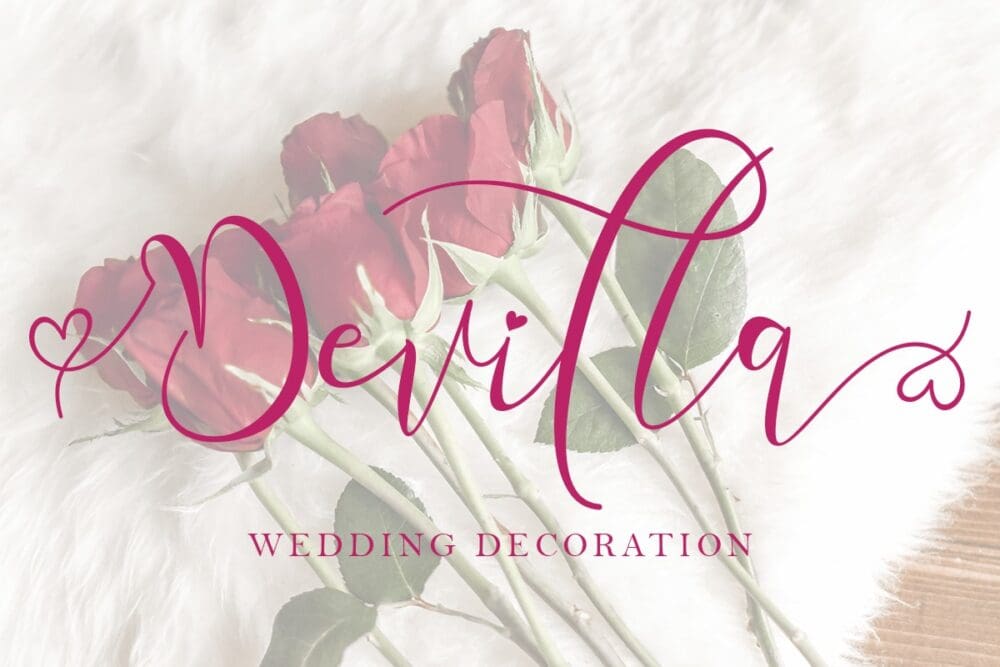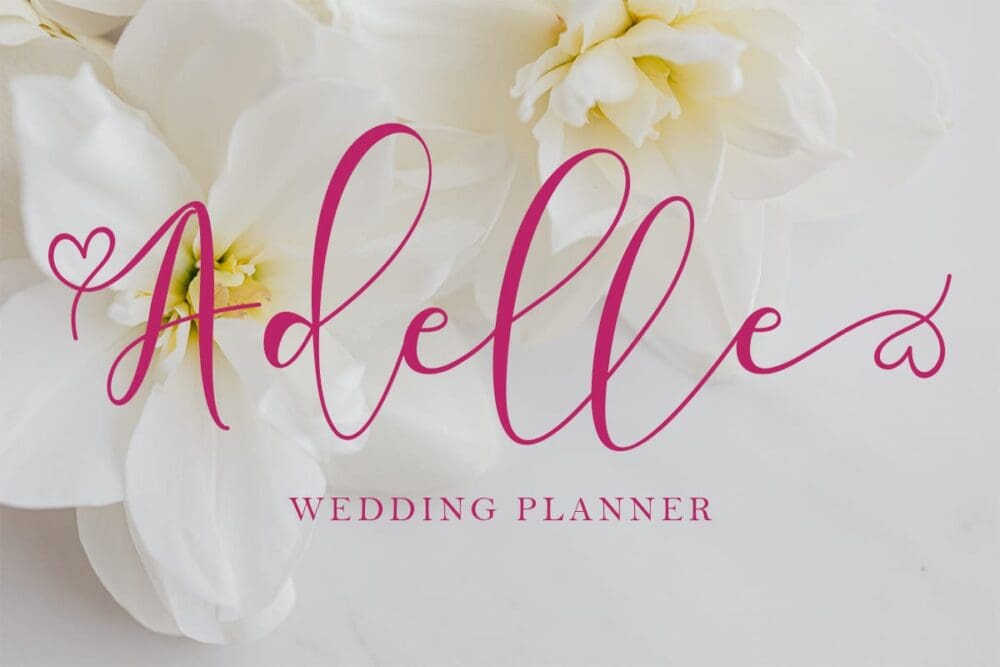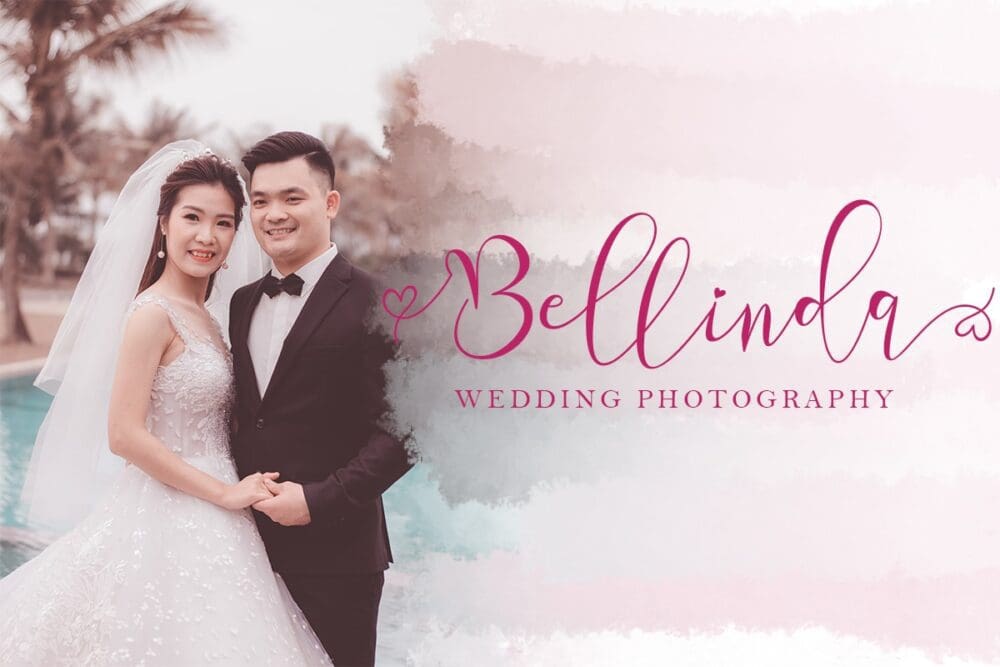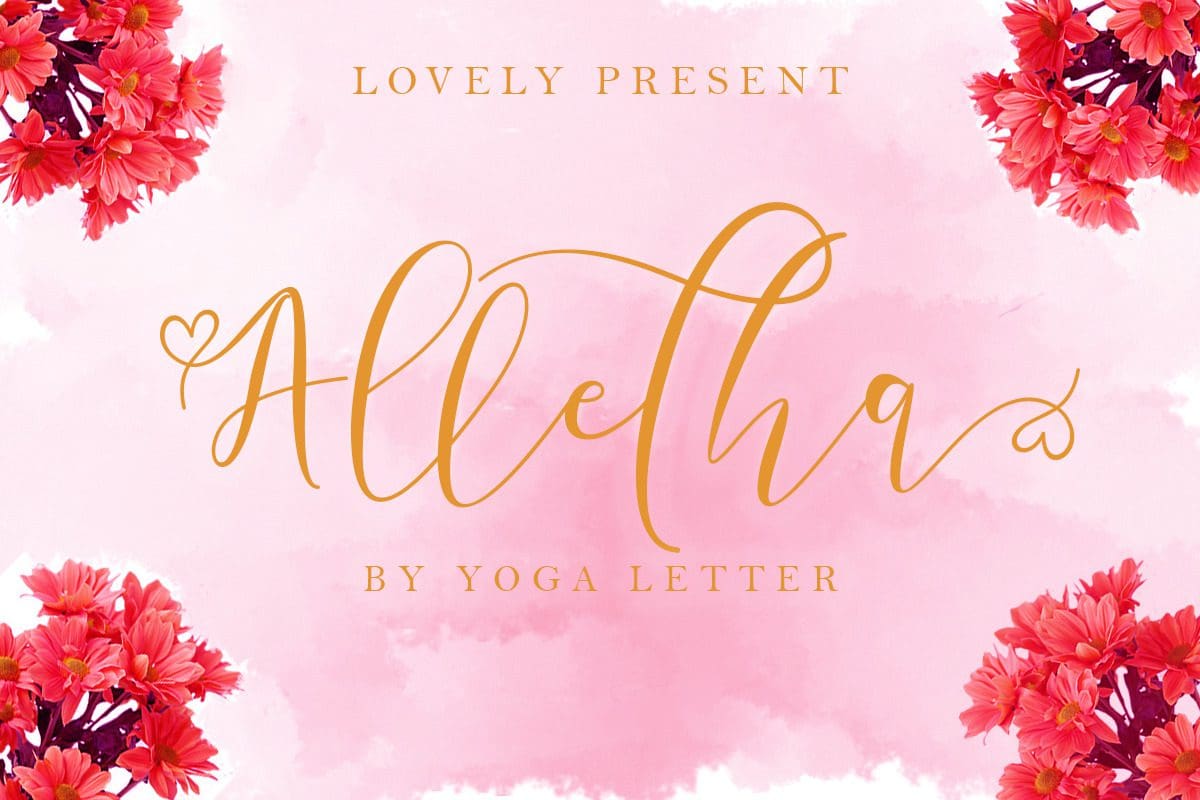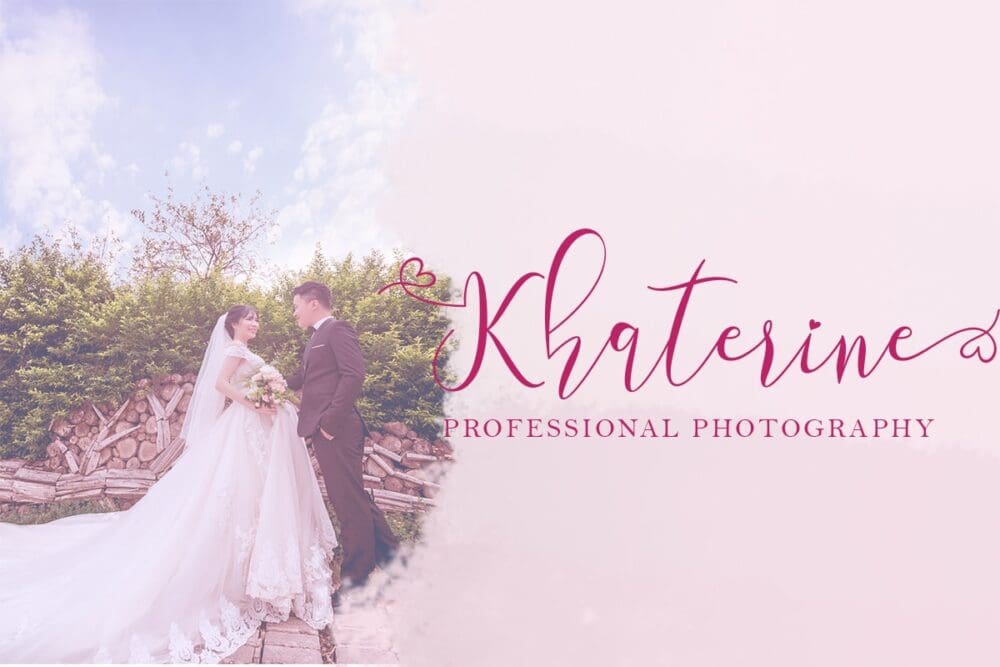
Alletha Font
Alletha is a delicate, elegant and flowing handwritten font. It has beautiful and well balanced characters and as a result, it matches a wide pool of designs. Alletha features a varying baseline, smooth lines, gorgeous glyphs and stunning alternates.